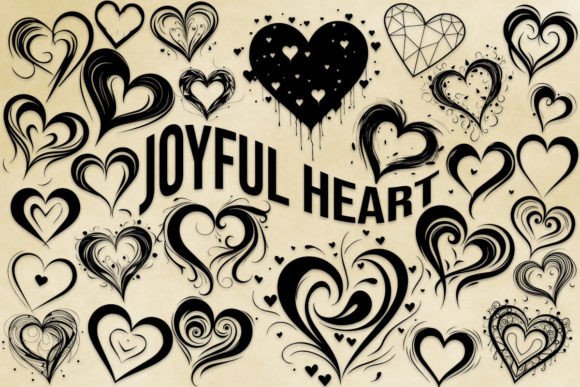
Introducing Joyful Heart Font, the ultimate font collection that will breathe life into your designs! Created by the talented MOMAT THIRTYONE, this dingbats font family is specifically designed to be the Best Font for Brochure Design. Prepare to embark on a journey filled with limitless possibilities and boundless creativity!
With an impressive assortment of 62 characters, including 26 captivating uppercase letters, 26 charming lowercase letters, and numbers 0-9, Joyful Heart Font offers a rich variety of options to enhance your design projects. Each character radiates a sense of joy, injecting your creations with an irresistible and vibrant energy.
Imagine the impact of incorporating Joyful Heart Font into your brochures. Every word will come alive, capturing attention and leaving a lasting impression on your audience. Whether you are designing for a corporate event, a travel brochure, or a product launch, this font collection will elevate your design to new heights.
Every stroke of Joyful Heart Font exudes emotion, allowing you to effortlessly convey the essence of your message. Its unique style and intricate details will captivate viewers, evoking a sense of curiosity and wonder. Your designs will no longer be mere images on a page, but works of art that stir emotions and inspire action.
Joyful Heart Font is not just a tool for design; it is a gateway to a world of endless inspiration. Let your imagination run wild as you explore the countless combinations and possibilities this font collection offers. Whether you're creating logos, posters, invitations, or social media graphics, this font will become your trusted companion, guiding you towards stunning and unforgettable designs.
Incorporating Joyful Heart Font into your projects is as effortless as it is rewarding. Its user-friendly interface ensures a seamless experience, allowing you to focus on what truly matters - crafting extraordinary designs. Unleash your creativity, and watch as the ordinary transforms into the extraordinary with the power of this font collection.
Don't settle for ordinary fonts that blend into the background. Choose Joyful Heart Font and let your designs shine like never before. Infuse your creations with pure joy and watch as they capture hearts and minds. Take the leap and download Joyful Heart Font today, and unlock a world of boundless possibilities!